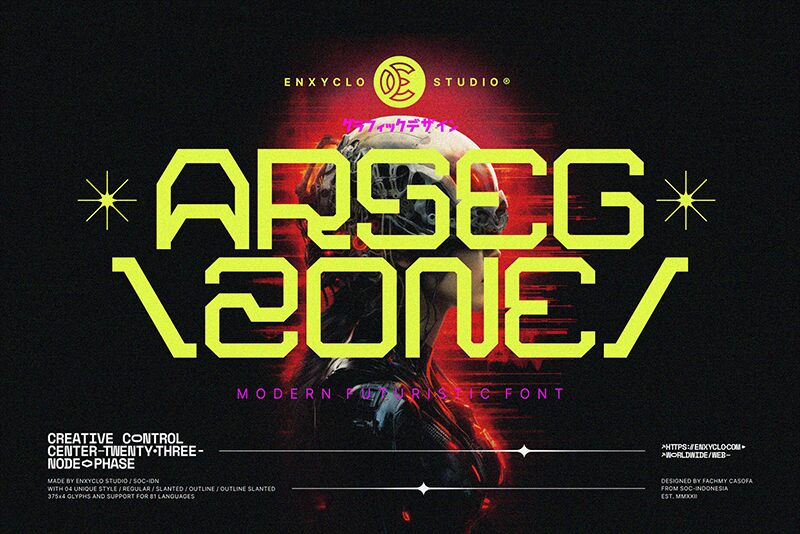
NCL Arsegzone Demo
NCL Arsegzone font by Enxyclo Studio is a free futuristic display font with expanded proportions. Its modular features and technological inspiration emanate across the futuristic typeface, making each character unique and eye-catching.
Use it to create spectacular science fiction movie titles, neon signs, album covers, website headlines, posters, games designs or visuals for escape rooms.